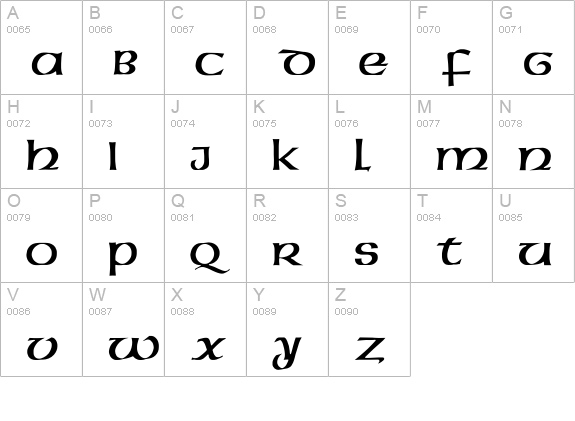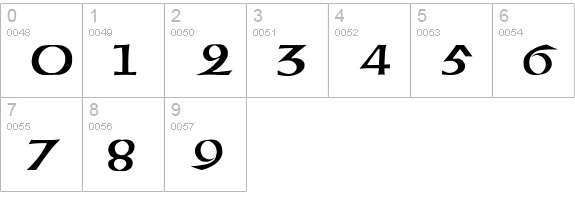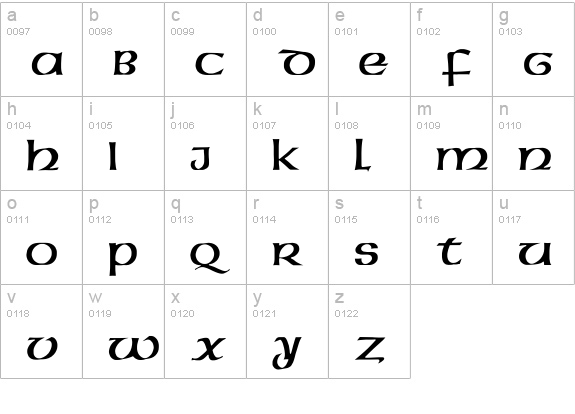
AmericanUncialInitials Font Details
AmericanUncialInitials font is a stunning display typeface that exudes a classic and elegant charm. With its ornate and intricate letterforms, this font is perfect for adding a touch of sophistication to any design project. The flowing curves and sharp edges of each character create a unique and eye-catching look that is sure to captivate viewers. This font is ideal for creating elegant invitations, vintage-inspired posters, or adding a touch of old-world charm to branding and packaging designs. Whether you're working on a wedding invitation or a historical reenactment poster, AmericanUncialInitials font is sure to make a statement. Best of all, AmericanUncialInitials font is available for free download at FontsMarket.com. This means you can easily access and use this beautiful typeface in your projects without any cost. Don't miss out on the opportunity to enhance your designs with the timeless beauty of AmericanUncialInitials font. Download it today and start creating stunning visuals that are sure to impress.